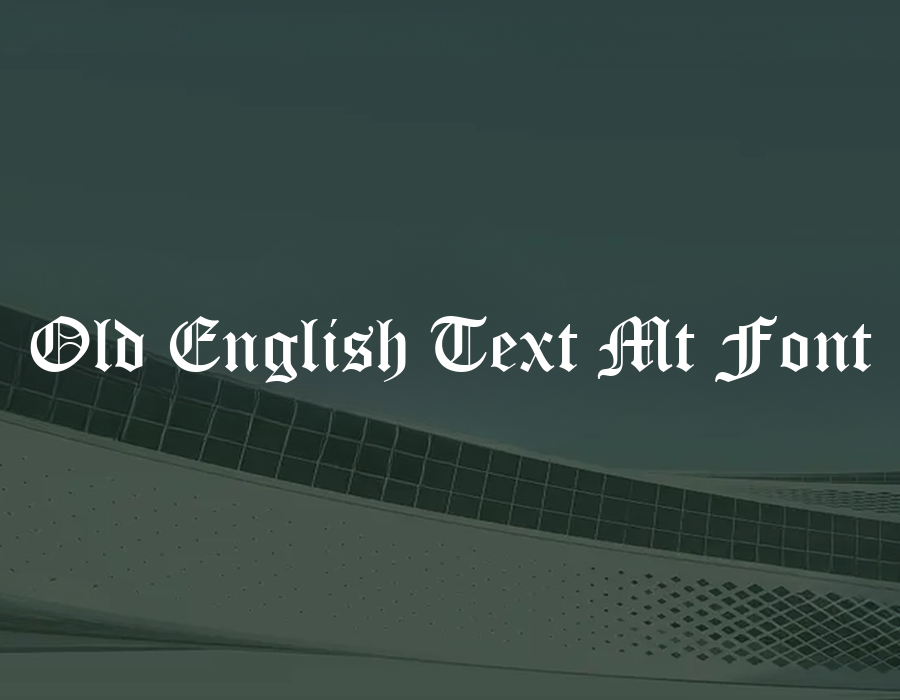
About Old English Text Mt Font
Old English Text MT is a digital blackletter typeface that replicates the style of calligraphy found in medieval European manuscripts and early printing. Its dense, angular letterforms with elaborate swirls and sharp terminals evoke a sense of antiquity, formality, and Gothic tradition. Commonly bundled with Microsoft Office, it has become a widely accessible font for designs requiring a historical or ceremonial feel, such as university certificates, newspaper mastheads, heavy metal band logos, and themed invitations. While highly decorative, its intricate details can reduce legibility at small sizes, making it best suited for headlines and short, impactful text.